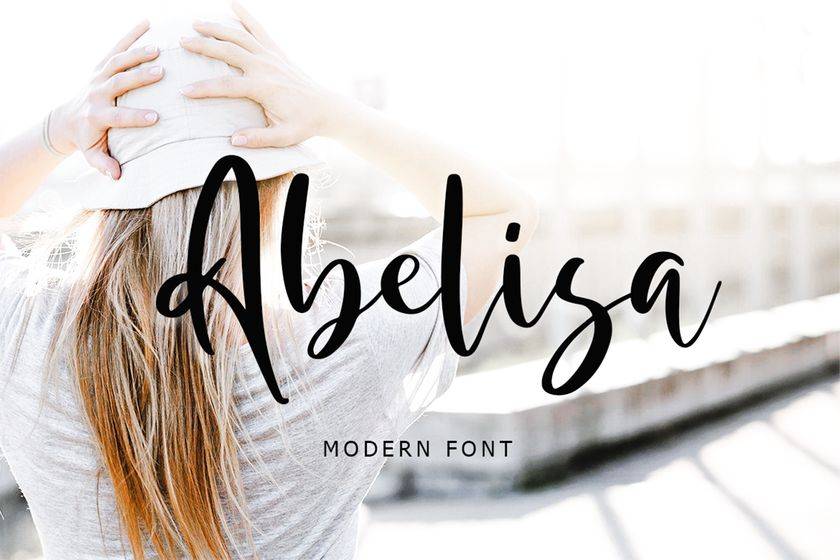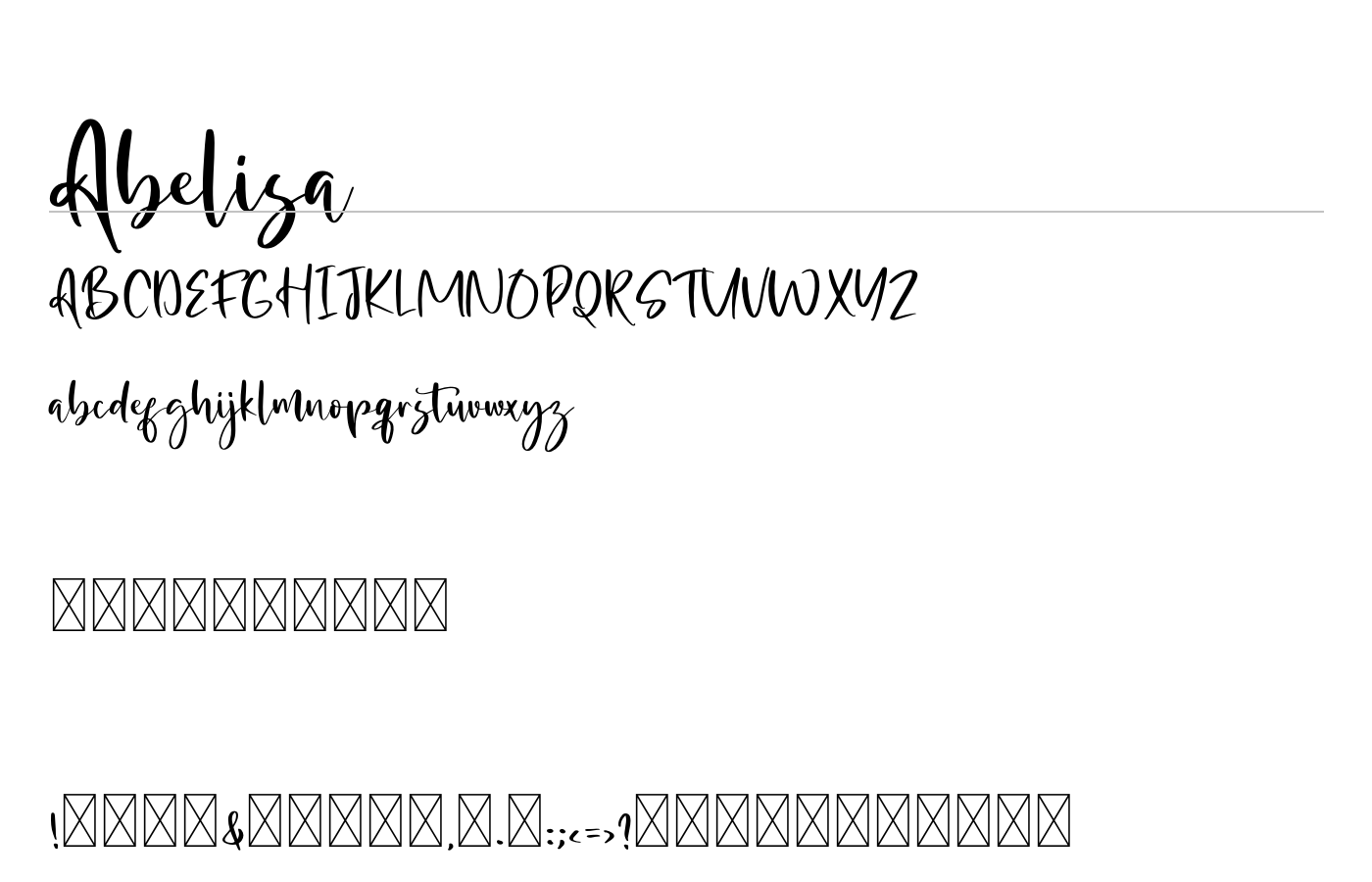
Abelisa is a lively and elegant script font featuring a smooth, flowing style with delicate strokes and playful swashes. Its tall x-height and slender letterforms give it a modern yet personal feel, making it perfect for invitations, branding, and creative projects that need a touch of warmth and sophistication. This font works especially well in designs that seek a handwritten, friendly look with a refined and graceful touch.
Abelisa Font
About Abelisa Font
| Designer | Ana Natalia |